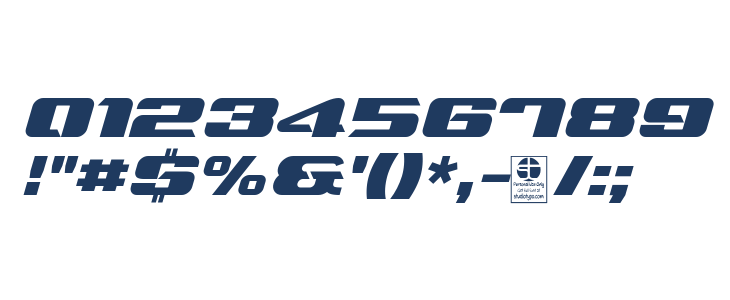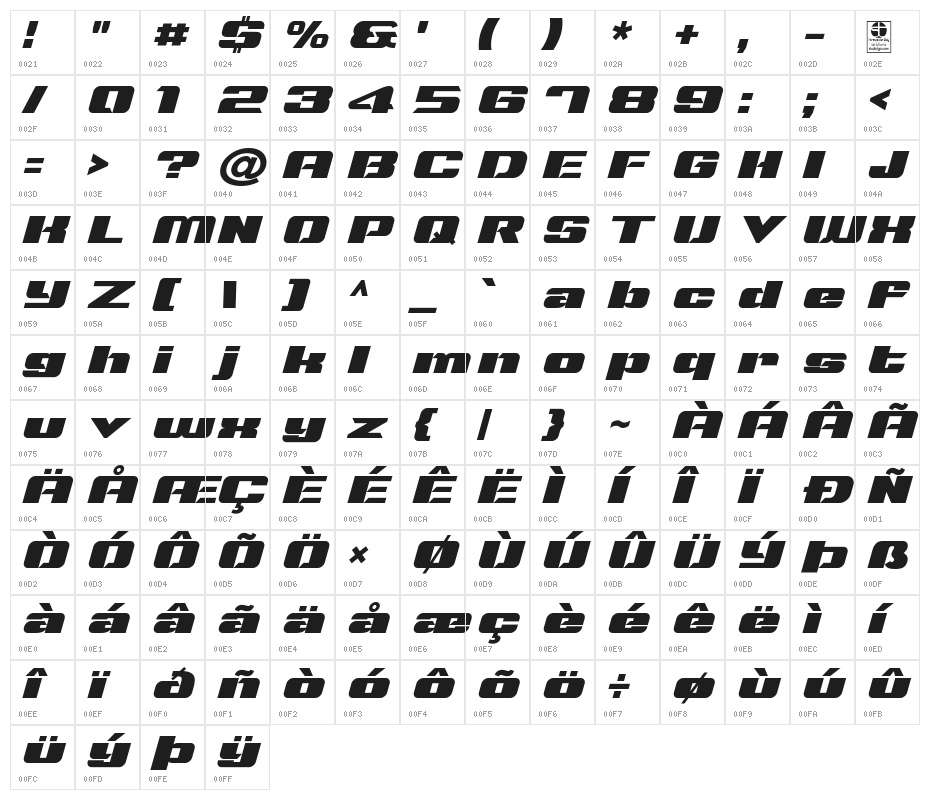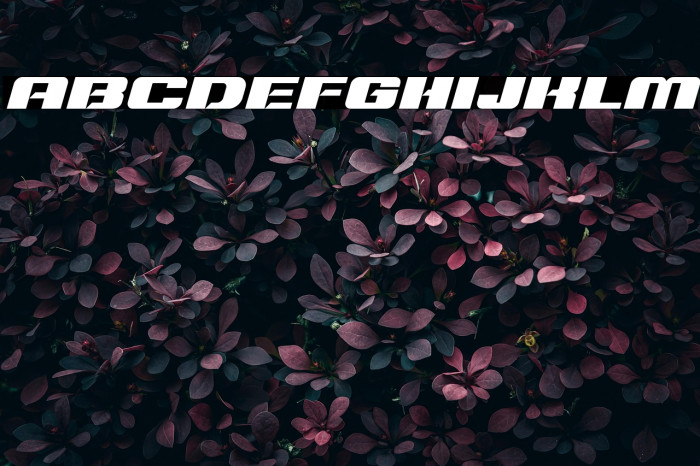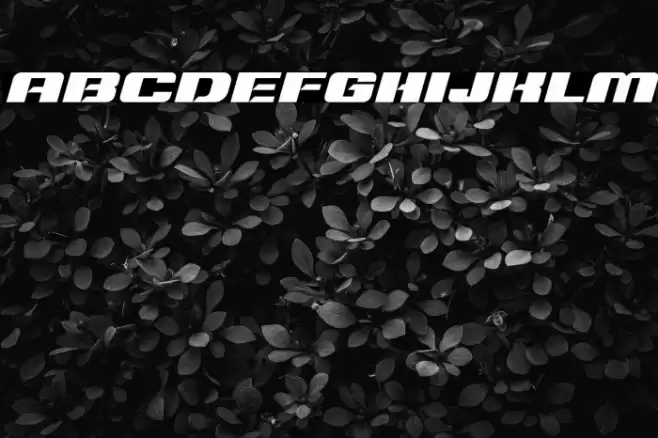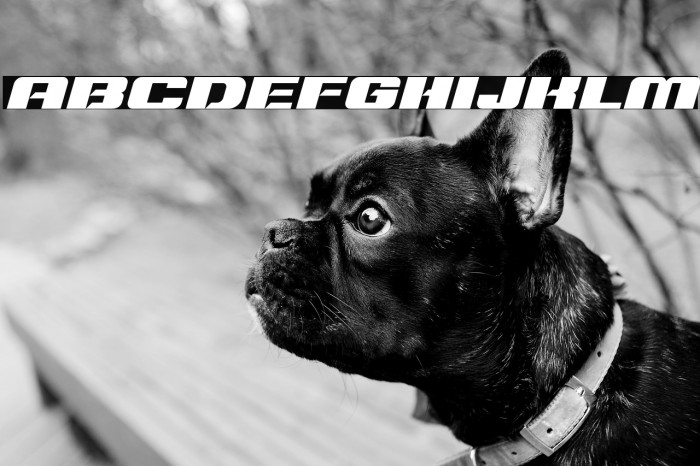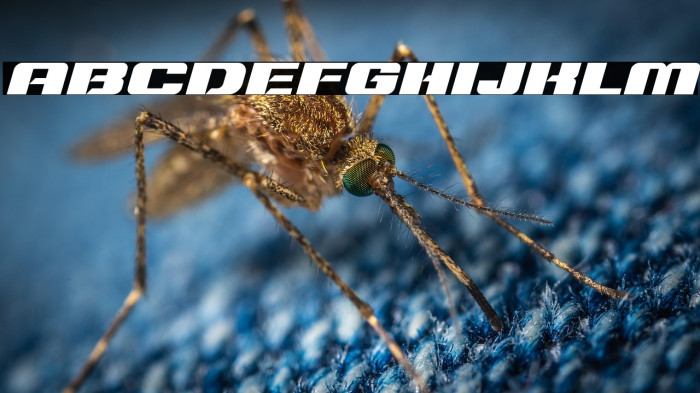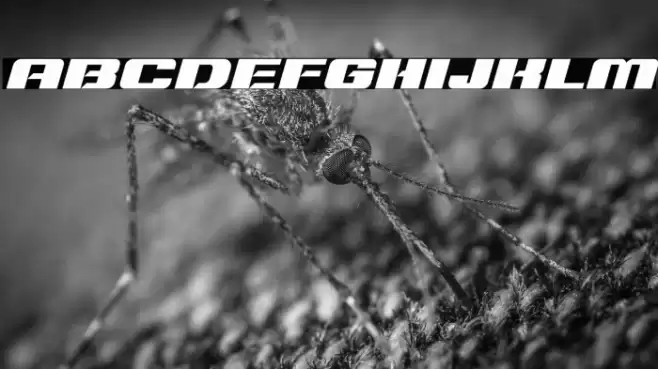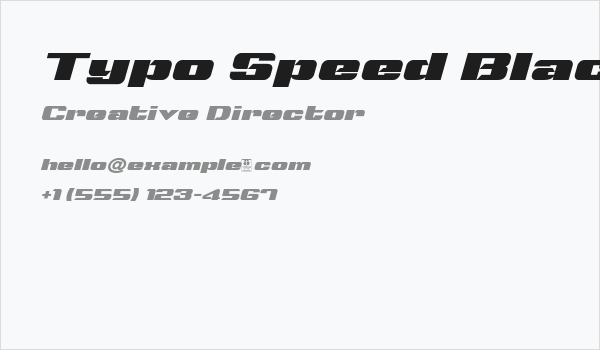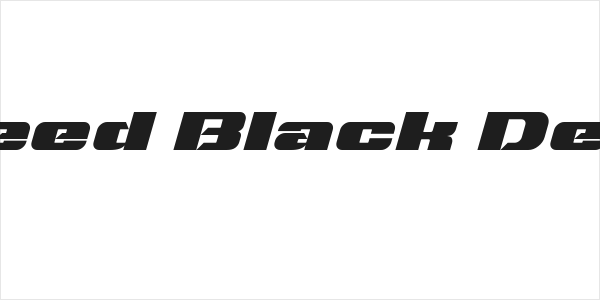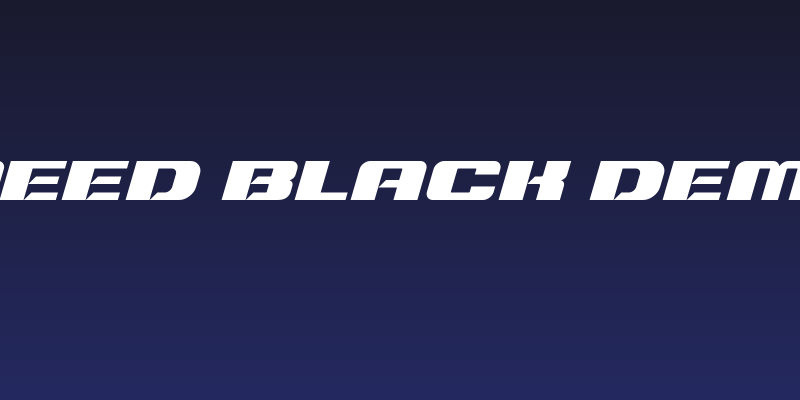
Typo Speed Black Demo Italic Font
Typo Speed Black Demo Italic Description
This font exhibits a bold and dynamic style with a distinctly italicized slant, giving it a sense of motion and speed. The characters are wide and robust, featuring sharp angles and a strong presence. The uppercase letters are particularly striking, with a futuristic and sporty appearance. The lowercase letters maintain the same boldness, ensuring consistency throughout. Numerals are equally bold, making them highly legible and impactful. Special characters are designed to match the overall aesthetic, providing a cohesive look across all glyphs. This font is ideal for projects that require a modern and energetic feel.